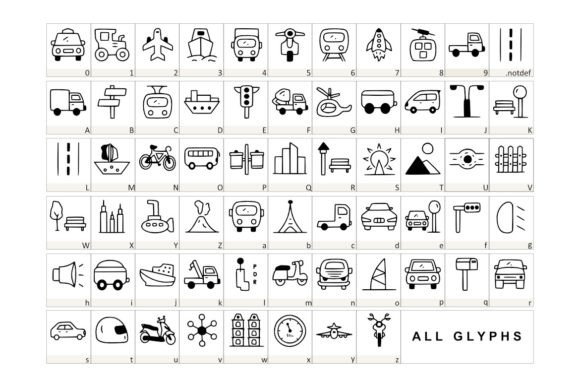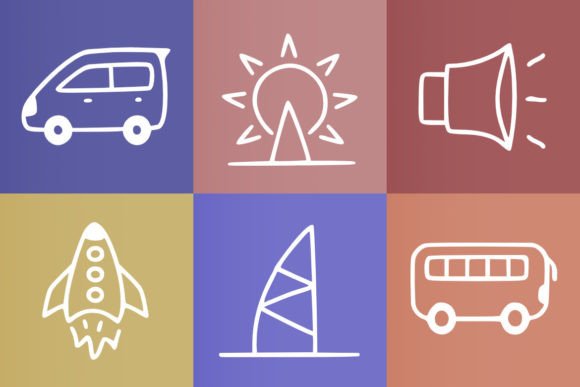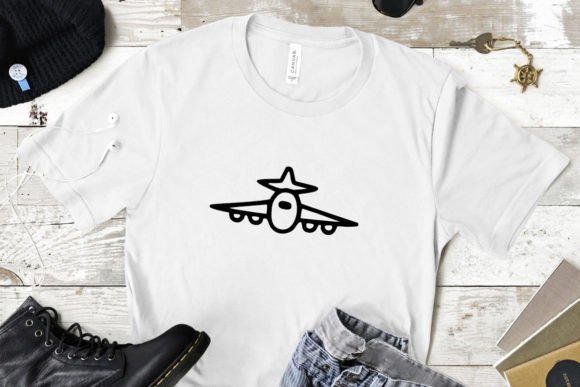
The Conveyance Font: A Fun and Versatile Dingbats Delight
Have you ever been in the middle of a design project, and suddenly, you just can’t seem to find the right font? I recall a particularly frustrating moment when I was working on a sticker design for a client’s summer sale. I wanted something fun, playful, and eye-catching, but my usual go-to fonts just weren’t cutting it. That’s when I stumbled upon the Conveyance font, and let me tell you, it was a game-changer! 🎉
So, what makes Conveyance so special? Here are a few things that I absolutely love about this font:
- ✨ Fun and quirky design: Conveyance is a dingbats font that’s perfect for adding a touch of whimsy to your designs.
- ✅ Highly versatile: This font is suitable for a wide range of projects, from stickers and posters to t-shirts and cards.
- 💡 Easy to read: Despite its playful design, Conveyance is surprisingly easy to read, even at smaller sizes.
Of course, no font is perfect, and Conveyance does have a few small quirks to watch out for:
- 🤔 Limited character set: As a dingbats font, Conveyance has a limited character set, which may not be suitable for projects that require a wide range of characters.
- ⚠️ May not work well at very small sizes: While Conveyance is easy to read at larger sizes, it may become a bit blurry or difficult to read at very small sizes.
The Designer Inspiration Behind Conveyance
Conveyance was designed with the creative hobbyist in mind. The designer wanted to create a font that was both fun and functional, perfect for a wide range of projects. The result is a font that’s both playful and versatile, with a unique personality that’s sure to stand out.
- Q: What type of projects is Conveyance best suited for?
- A: Conveyance is perfect for a wide range of projects, including stickers, posters, t-shirts, cards, and more.
- Q: Is Conveyance easy to read?
- A: Yes, despite its playful design, Conveyance is surprisingly easy to read, even at smaller sizes.